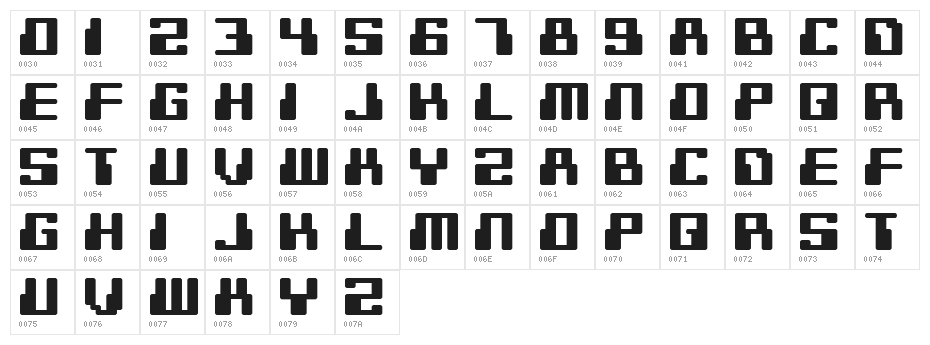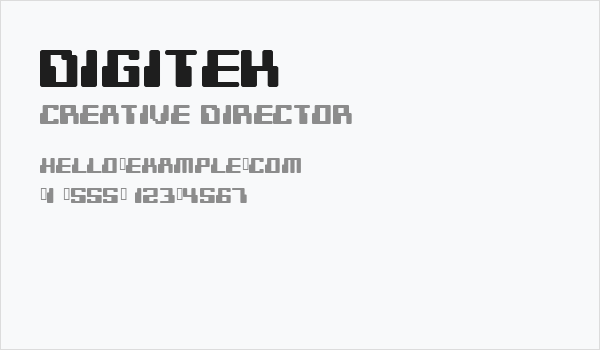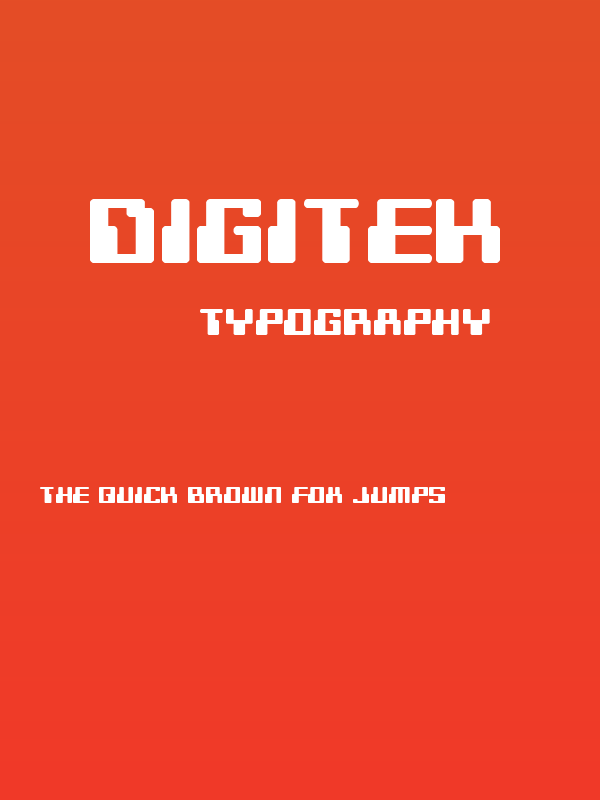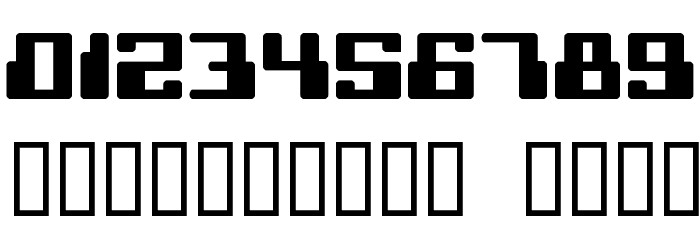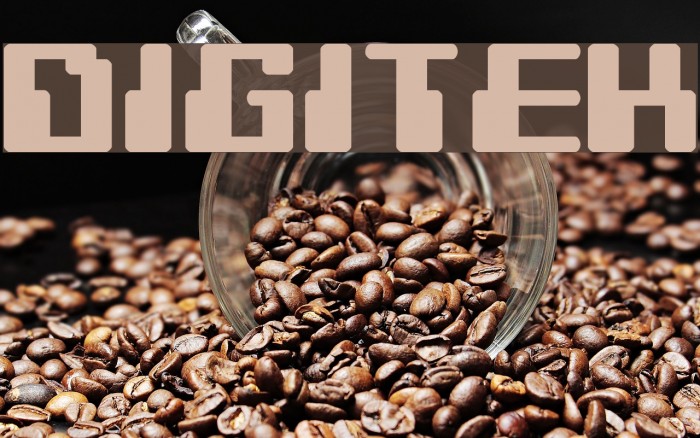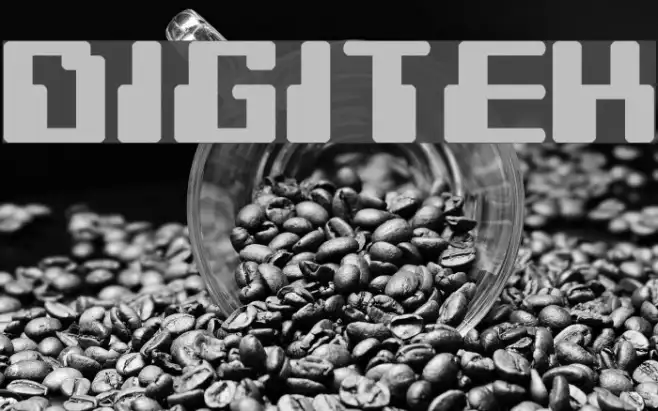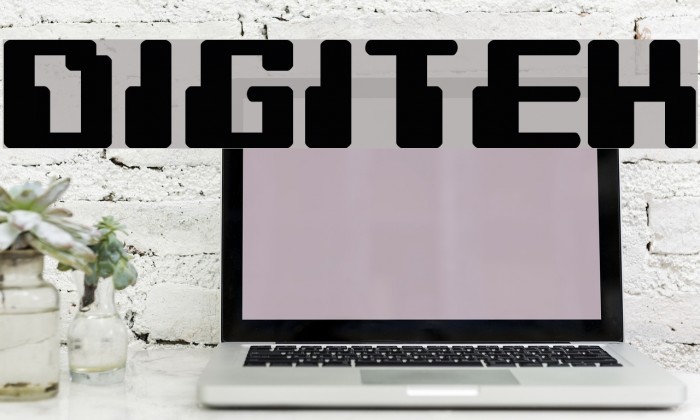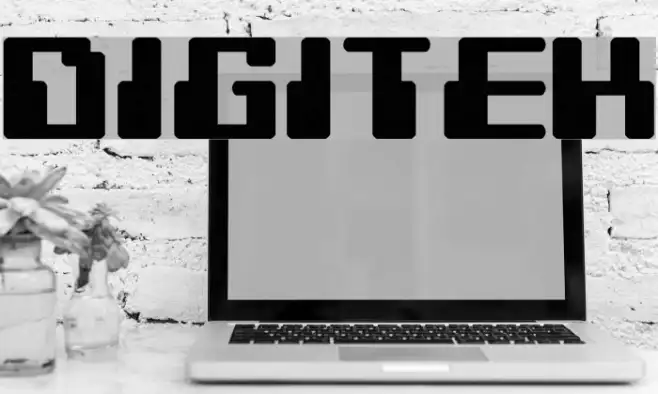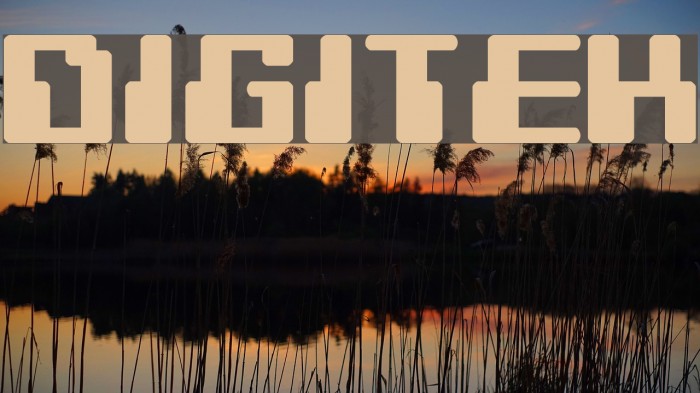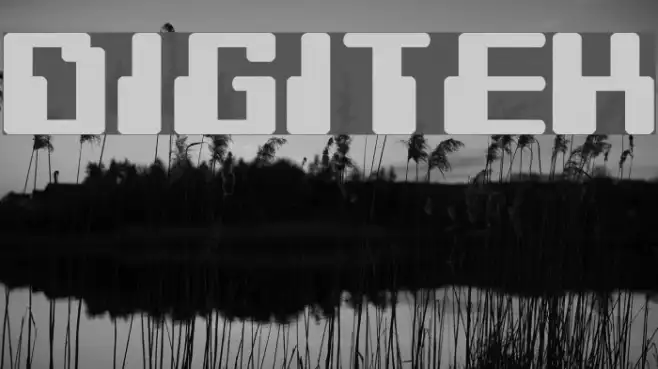
Digitek Font
Digitek Description
This font features a bold, geometric design with a distinctly digital aesthetic. The characters are constructed with blocky, pixel-like shapes, giving it a retro, tech-inspired feel. The uppercase and lowercase letters share a uniform height, contributing to a monospaced appearance. The numbers and special characters maintain the same blocky style, ensuring consistency across all glyphs. This font's unique style makes it ideal for projects that require a futuristic or digital theme, such as video game design, tech branding, or digital art. Its boldness ensures high readability, even at smaller sizes.
| Proposed Projects | Ideal for video game design, tech branding, digital art, and any project needing a futuristic theme. |